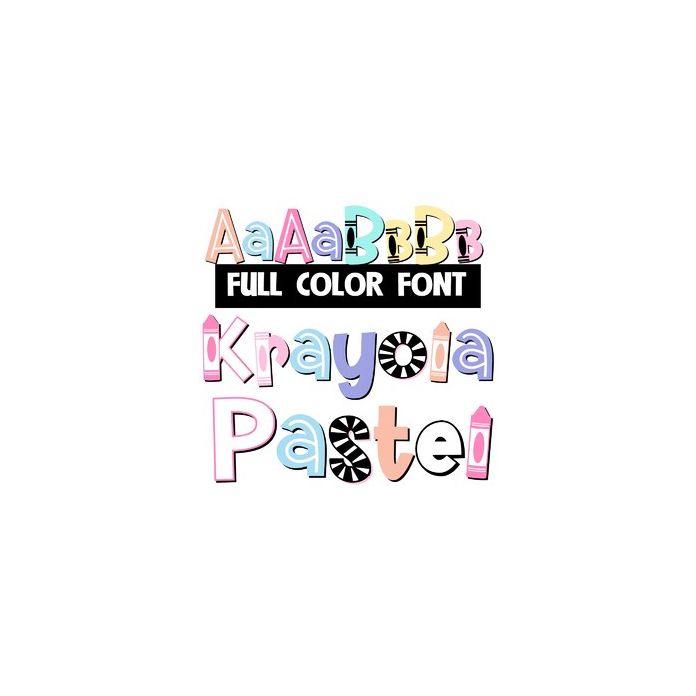
This full-color font features crayon-influenced lettering in pastel colors. There is an alt uppercase with secondary colors that you can access through your system's character map. This font works best for titles, displays, posters and more. Please note color fonts will show as black in non compatible programs. This font type is compatible with Silhouette Studio.